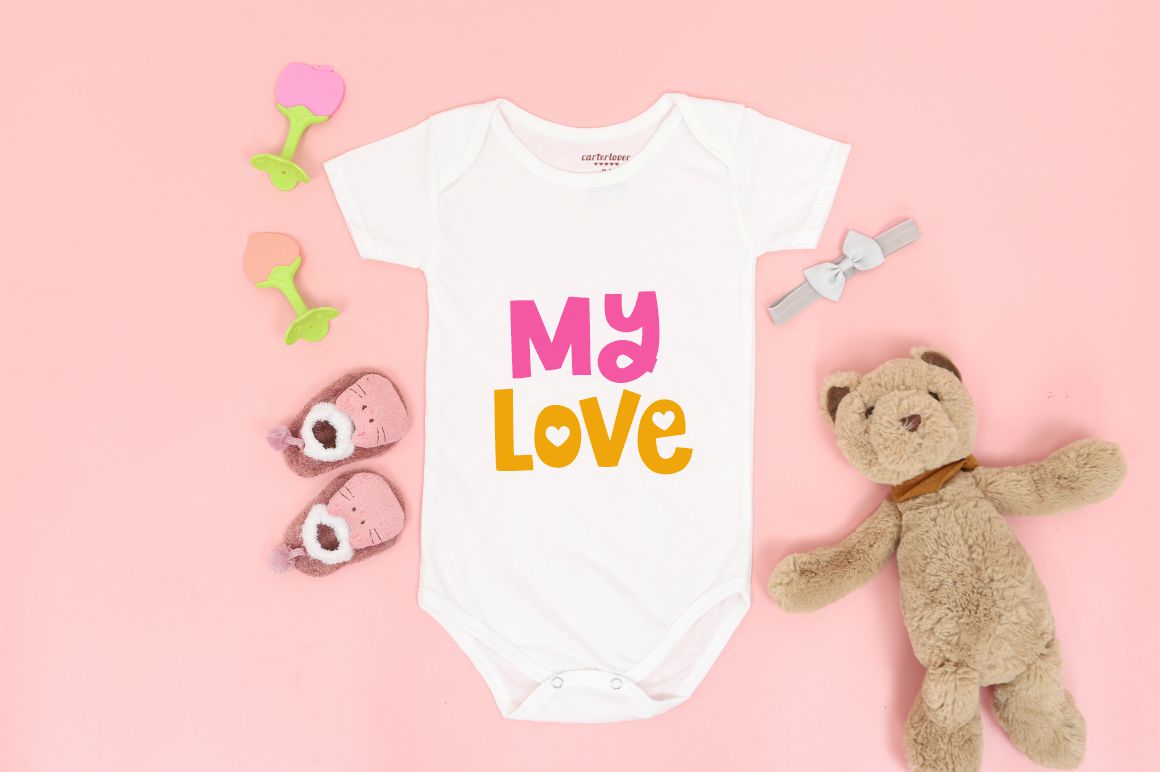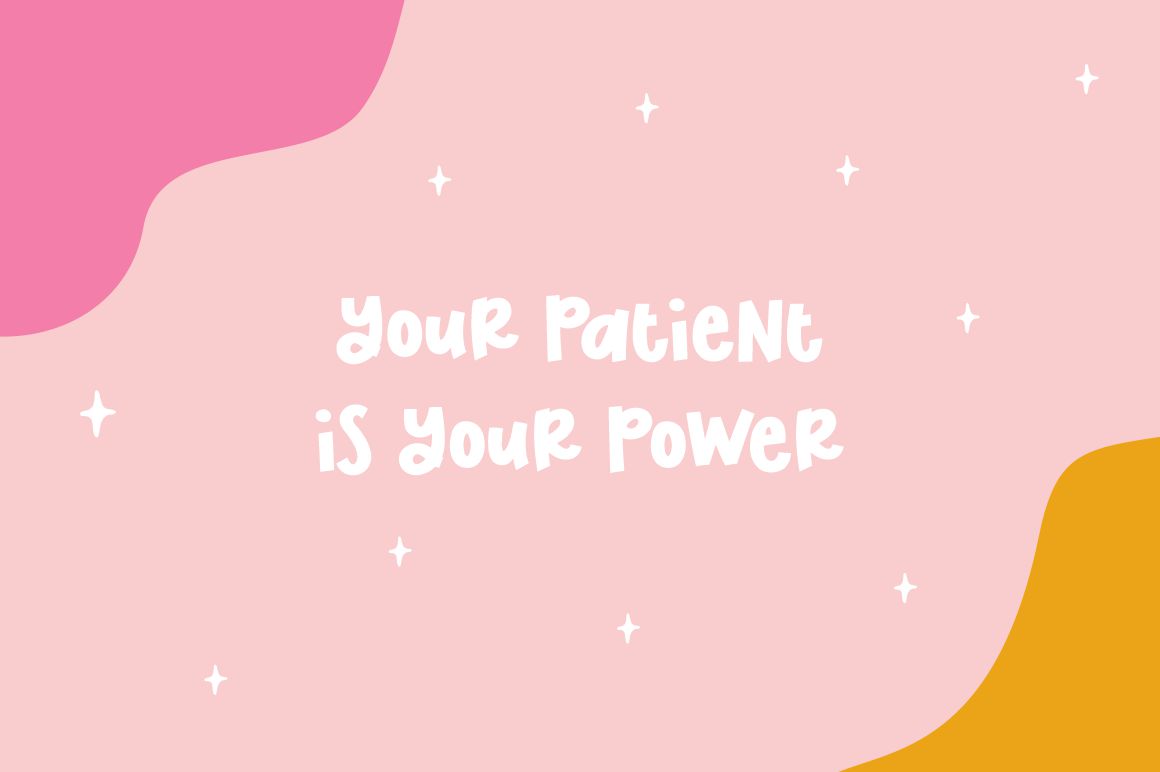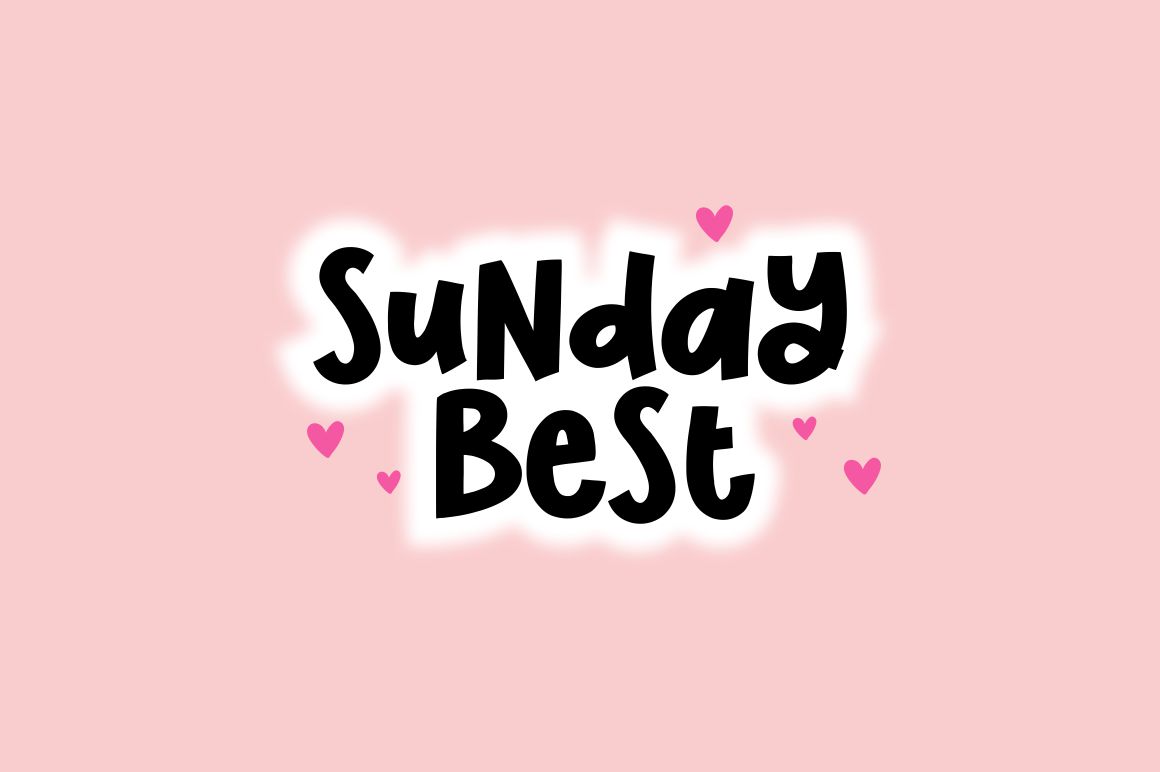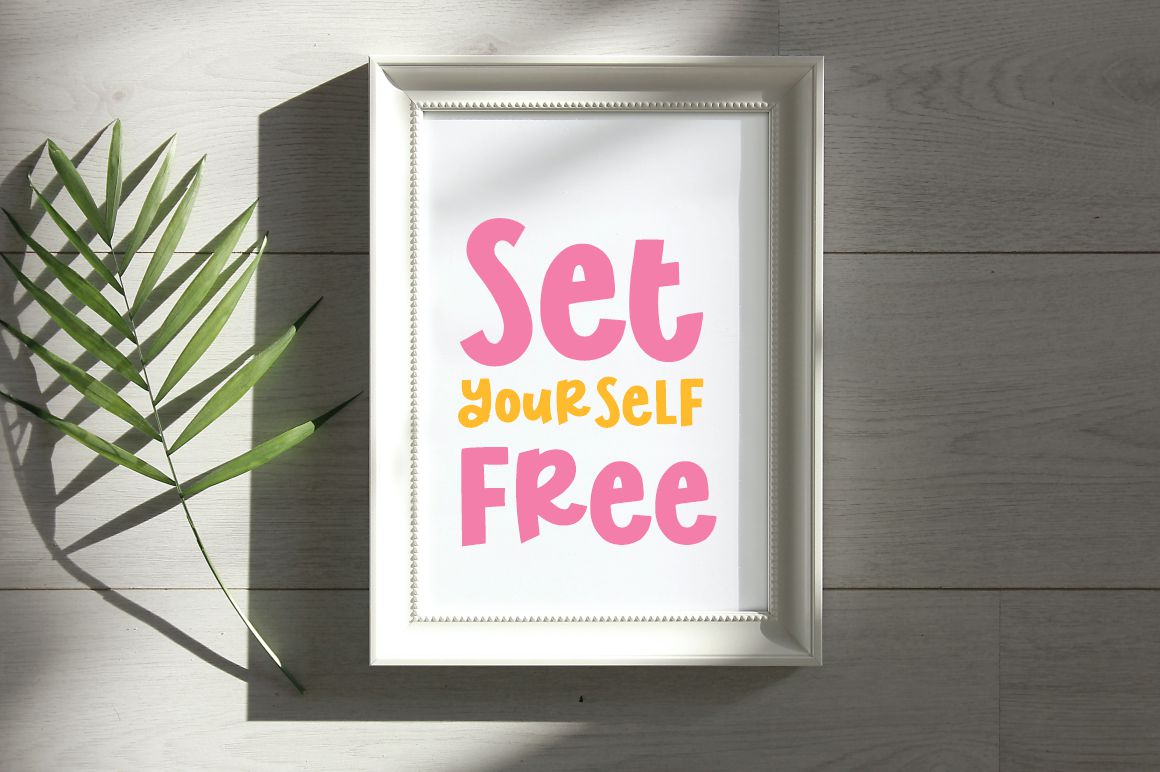
Lovely Time Font
Lovely Time Display Font
This is playful and cute typeface perfect for any quirky design work! These cute fonts are made by hand and with great love! It is suitable for you to use in making t-shirt design, quote, label, packaging, logo type, mugs and more!